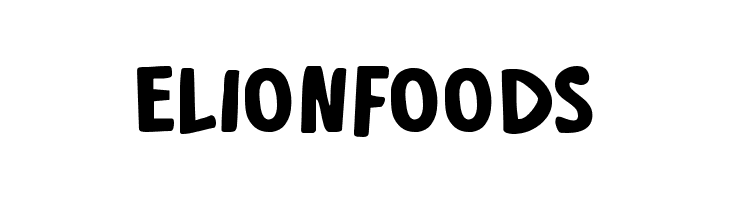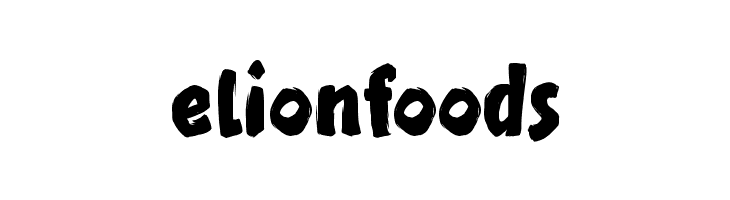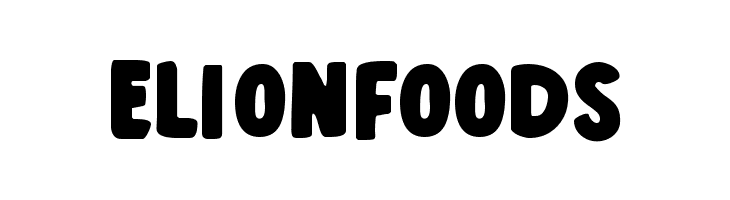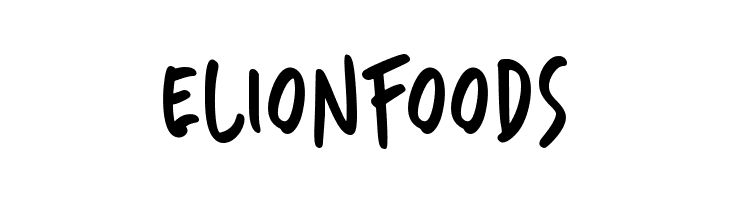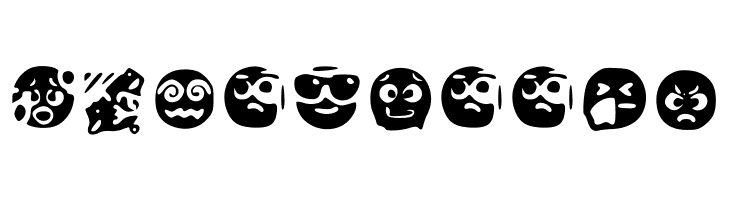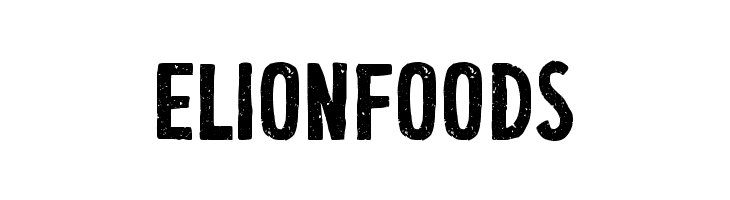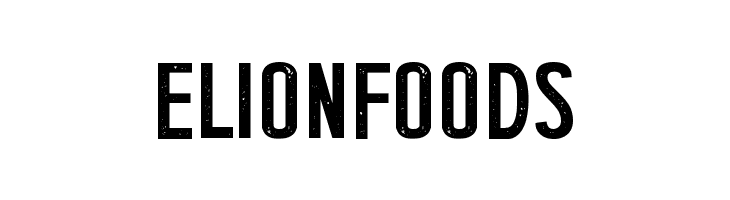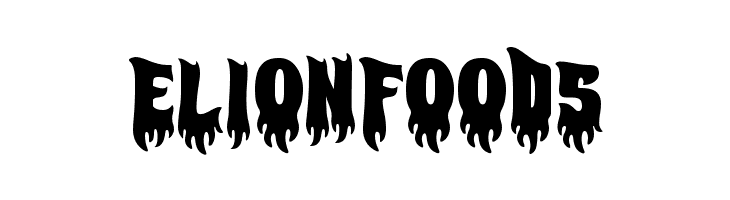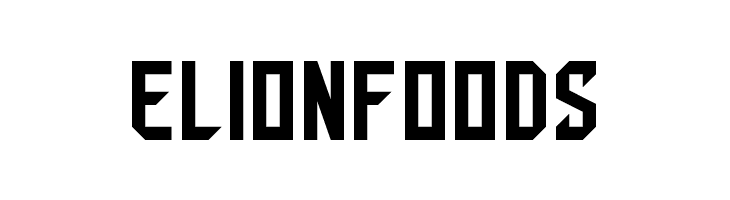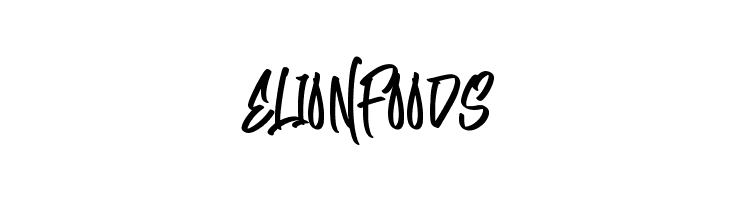
( Fonts by Fontherapy | Kalifont Studio )
A playful, bold handwritten font with rounded edges and a whimsical style.
( Fonts by Fontherapy | Kalifont Studio )
A bold, playful font with a hand-drawn, organic feel.
( Fonts by Fontherapy | Kalifont Studio )
A bold, rounded, comic-style font with a playful and energetic appearance.
( Fonts by Fontherapy | Kalifont Studio )
A bold, energetic handwritten font with dynamic curves and a playful style.
( Fonts by HKtito )
Expressive emoji pictograms with bold, simplified forms.
( Fonts by Fontherapy | Kalifont Studio )
A bold, distressed font with a vintage, textured appearance.
( Fonts by Fontherapy | Kalifont Studio )
A bold, distressed font with a vintage, athletic style.
( Fonts by Fontherapy | Kalifont Studio )
A bold, flame-inspired font with dramatic, fiery extensions.
( Fonts by Fontherapy | Kalifont Studio )
A bold, brushstroke font with dynamic and expressive characters.